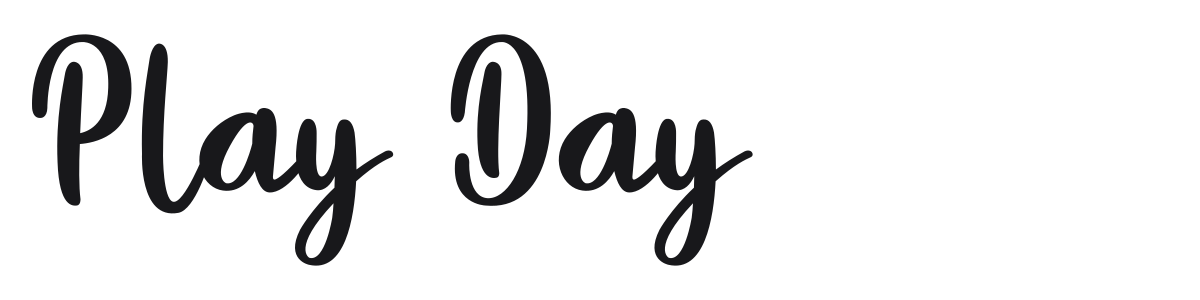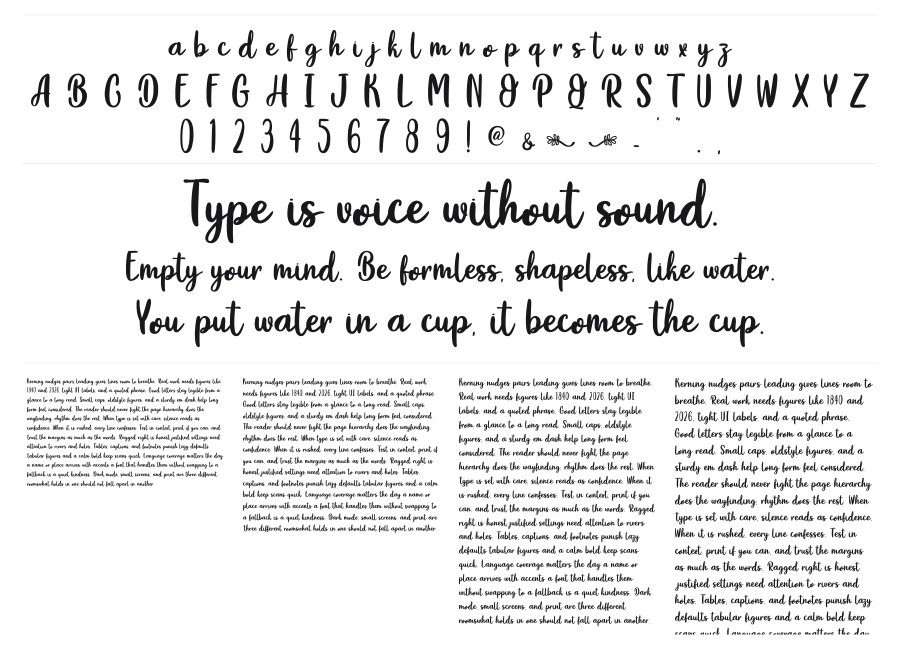
Play Day
Play Day is a bold casual script with the flowing rhythm of confident, expressive handwriting. Thick downstrokes and smooth rounded loops give it a warm, energetic feel that reads well at headline sizes. It includes swash alternates triggered by parentheses, adding decorative flair to opening and closing characters.